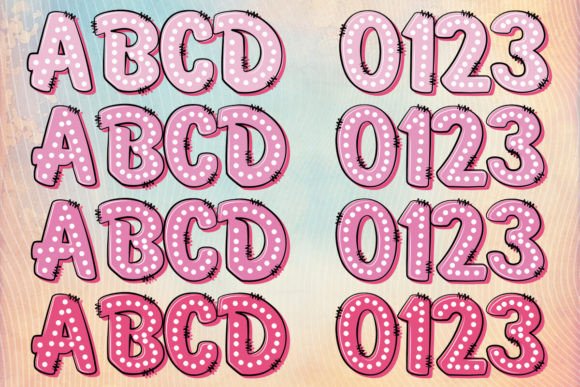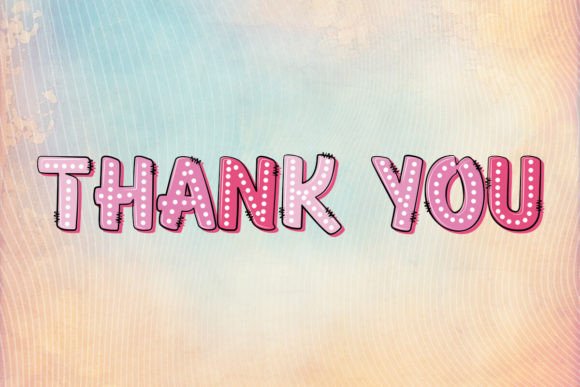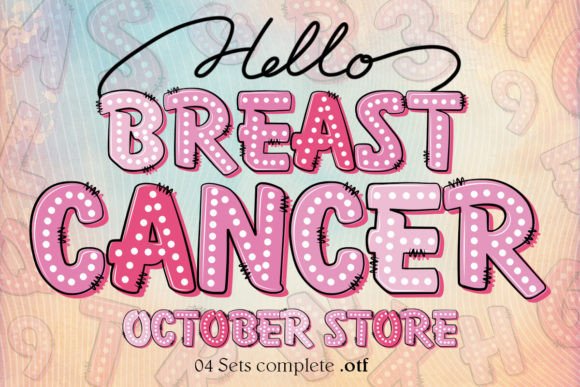
Introducing the Breast Cancer Font: A Powerful Symbol of Awareness and Style
I’ll never forget the moment I was working on a breast cancer awareness project, determined to create something that would make a statement. As a designer, I knew that the right font could make all the difference. That’s when I stumbled upon the Breast Cancer Font, a retro vintage-inspired typeface that immediately caught my attention. In this article, I’ll share my experience with this font, its features, and how you can use it to make a difference.
A Personal Design Moment: Finding the Right Font
I was tasked with creating a set of invitations for a breast cancer charity event. I wanted a font that would not only grab attention but also convey the importance of the cause. After hours of searching, I came across the Breast Cancer Font, and it was love at first sight. The alluring shade of pink and the nostalgic feel of the font made it the perfect choice for my project.
- ✨ The font’s unique, retro vibe that adds a touch of nostalgia to any design
- ✅ The beautiful shade of pink that’s both feminine and bold
- 💖 The font’s ability to spark conversations and raise awareness about breast cancer
- 🎨 The versatility of the font, suitable for various design projects, from invitations to branding campaigns
Exploring OpenType Features, Glyphs, and Stylistic Alternates
The Designer Inspiration Behind the Breast Cancer Font
The Breast Cancer Font was created with the intention of raising awareness and promoting conversation about breast cancer. The designer wanted to create a font that would not only be visually appealing but also carry a meaningful message. The result is a font that’s both stylish and thought-provoking.
Q: What is the Breast Cancer Font?
A: The Breast Cancer Font is a retro vintage-inspired typeface designed to promote breast cancer awareness. It’s available in a beautiful shade of pink and a black version.